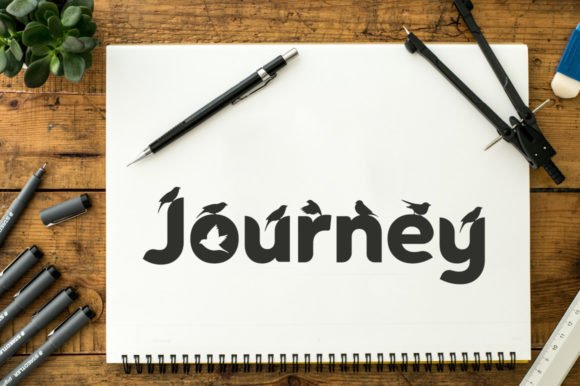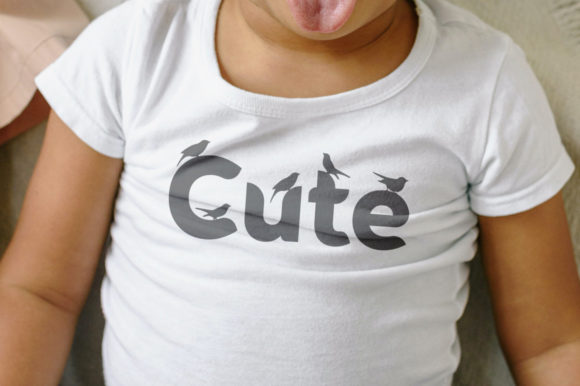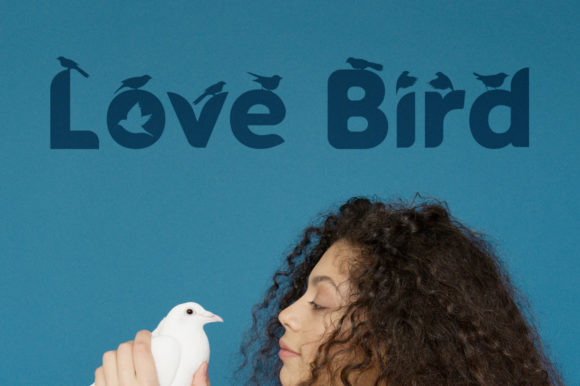
Black Bird Font
About the Black Bird Font
Meet Black Bird Font, a stunning font that brings a touch of elegance and professionalism to any design. Black Bird is a cute and cool decorative font inspired by a flock of little birds. it is perfect for your various creative projects such as company names, anniversaries, wedding invitations, t-shirts, product names, product packaging, book titles, magazines, fictional story titles and any design. even one that needs a nice, distinctive touch!
Black Bird’s playful energy makes it ideal for headlines, short text blocks on posters or packaging, and branding elements where a touch of whimsy is desired. It works exceptionally well for children’s products, playful brands, and projects needing a lighthearted, approachable feel. However, its decorative nature makes it less suitable for body text or UI elements where readability is paramount.
Consider pairing Black Bird with a clean sans-serif like Open Sans for a balanced contrast, or a classic serif such as Garamond for a more sophisticated feel. For a more modern edge, a geometric sans-serif like Futura could also complement its organic forms.
The font projects a friendly, approachable personality. Avoid using it in contexts requiring seriousness or formality.
Black Bird Font Usage Examples
Black Bird Font Example